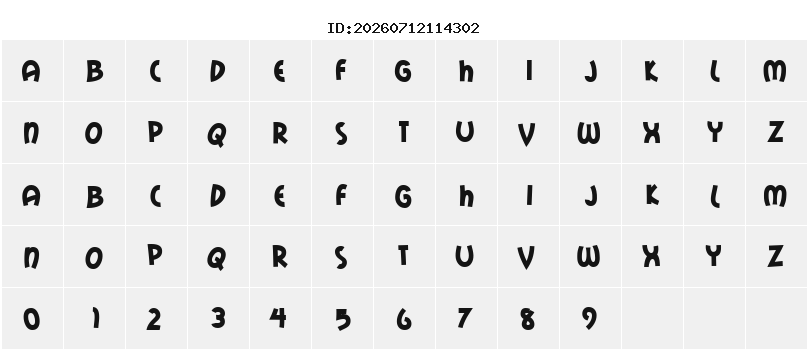
Mail Ray Stuff Preview
• Font Name: Mail Ray Stuff
• Full Font Name: Mail Ray Stuff
• Designer: Ray Larabie
• Manufacturer: Larabie Fonts
About Mail Ray Stuff.ttf
Mail Ray Stuff.ttf is a modern, elegant sans-serif font designed for ultimate readability and visual harmony. Perfect for branding, headlines, web design, and print materials.